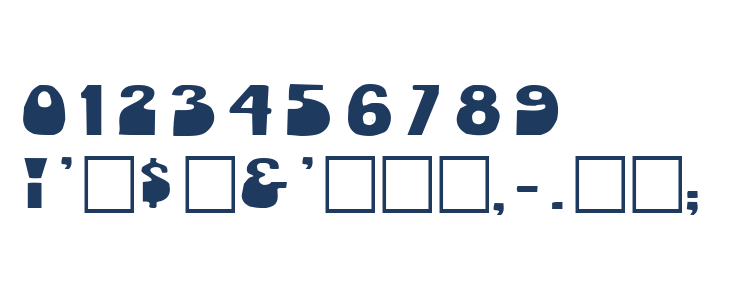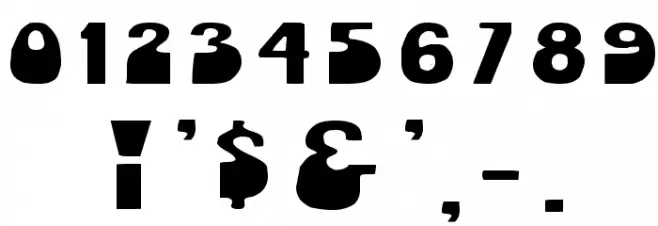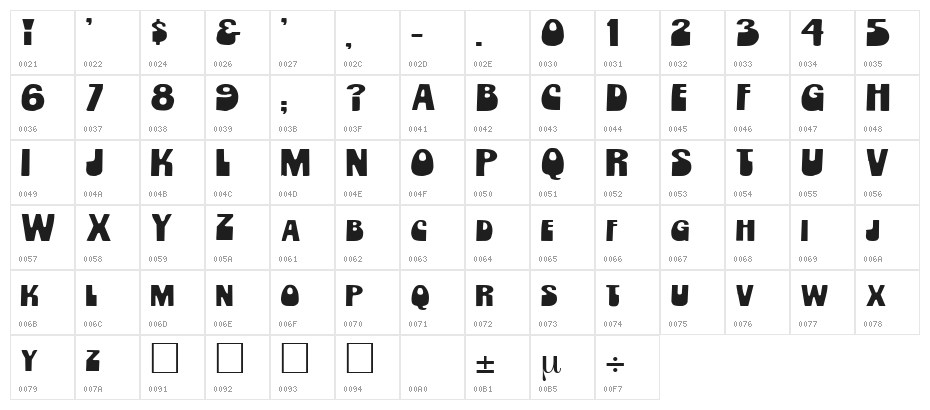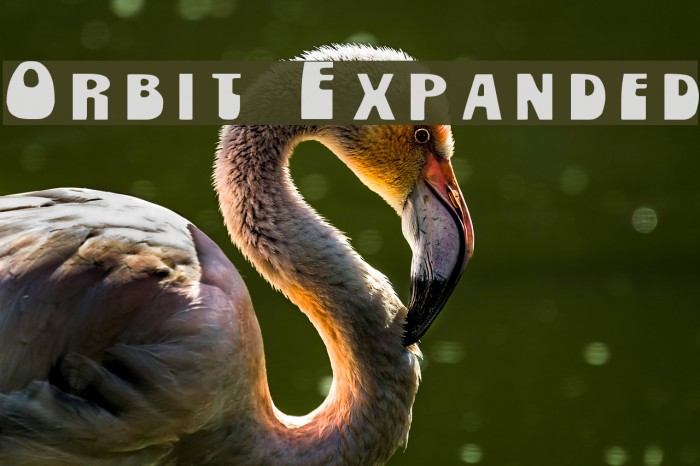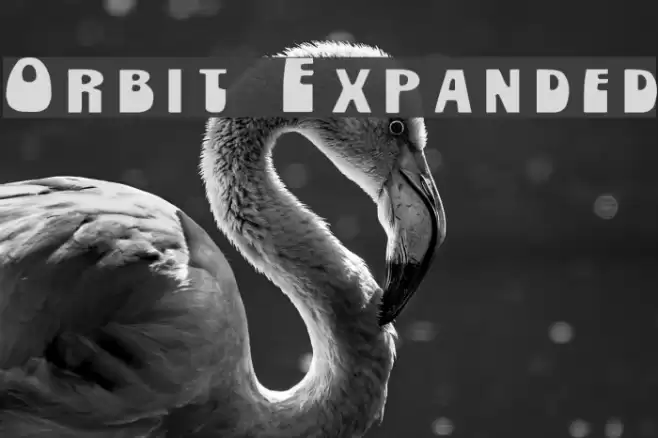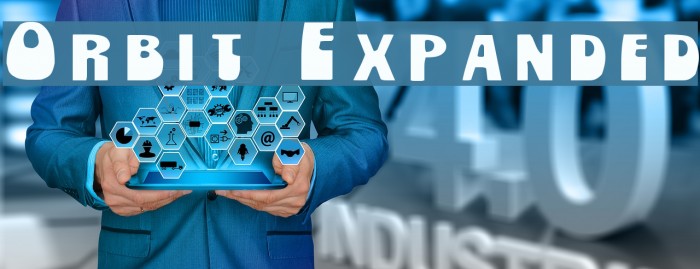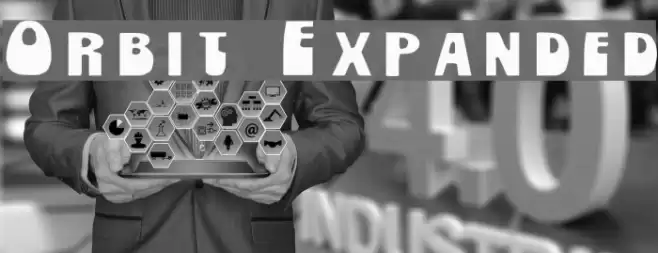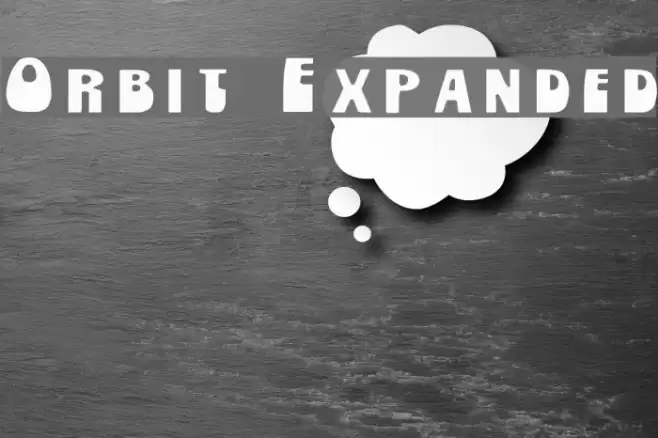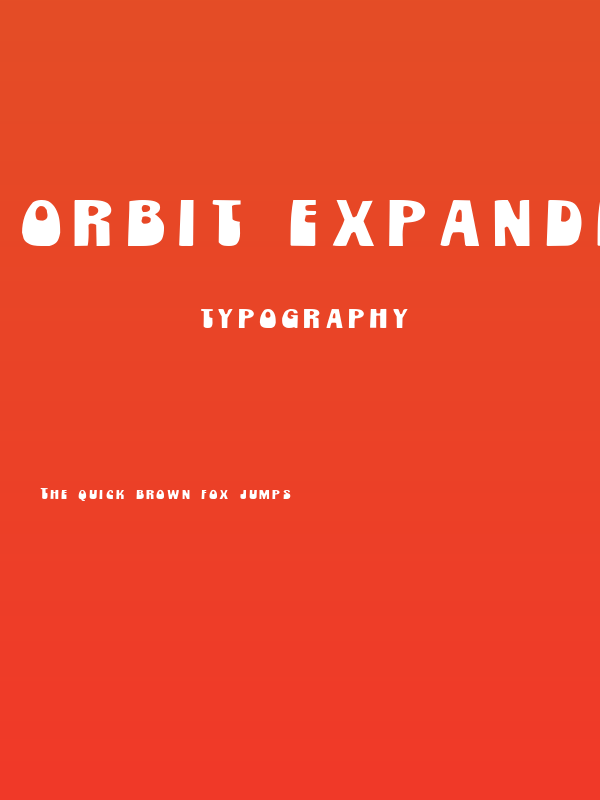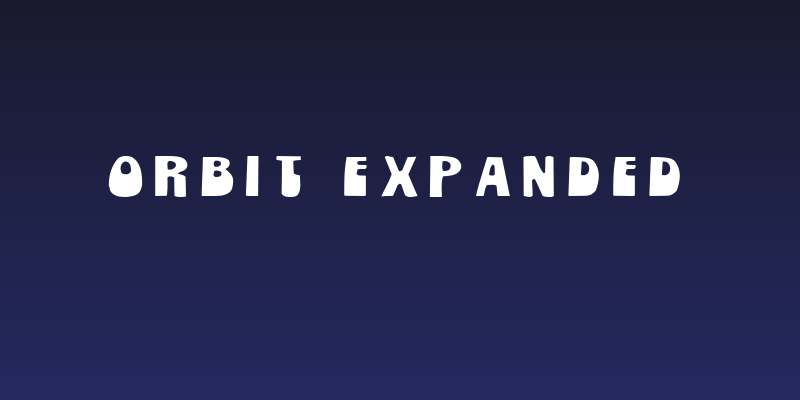
Orbit Expanded Font
Orbit Expanded Description
This font features a bold and expansive design with a strong presence. The characters are wide and have a distinct, blocky appearance, making them highly visible and impactful. The uppercase and lowercase letters maintain a consistent style, with rounded edges and uniform stroke thickness. The numbers and special characters follow the same bold and expansive design, ensuring a cohesive look across all elements. This font is ideal for projects that require a strong visual impact and clear readability.
| Proposed Projects | Ideal for headlines, posters, branding, and any design requiring a bold statement. |